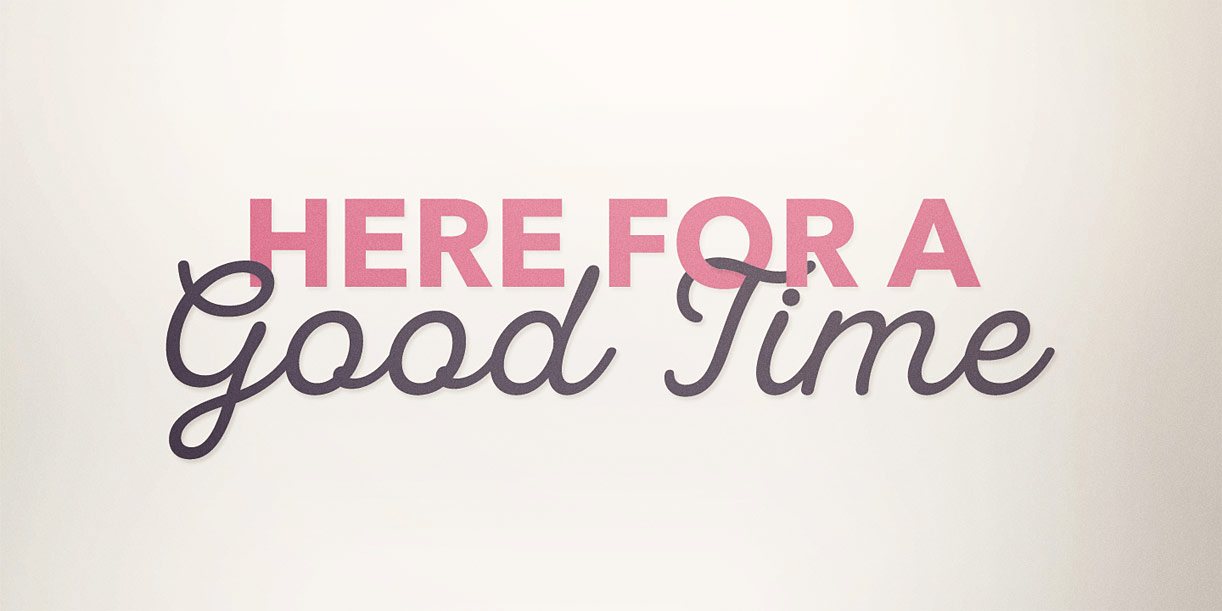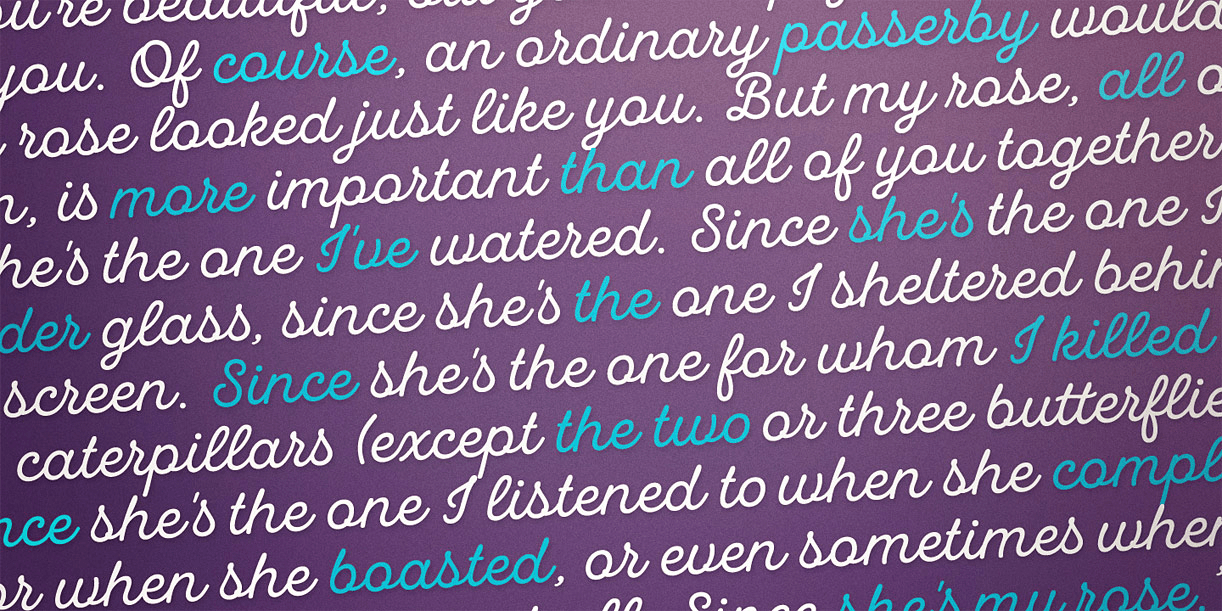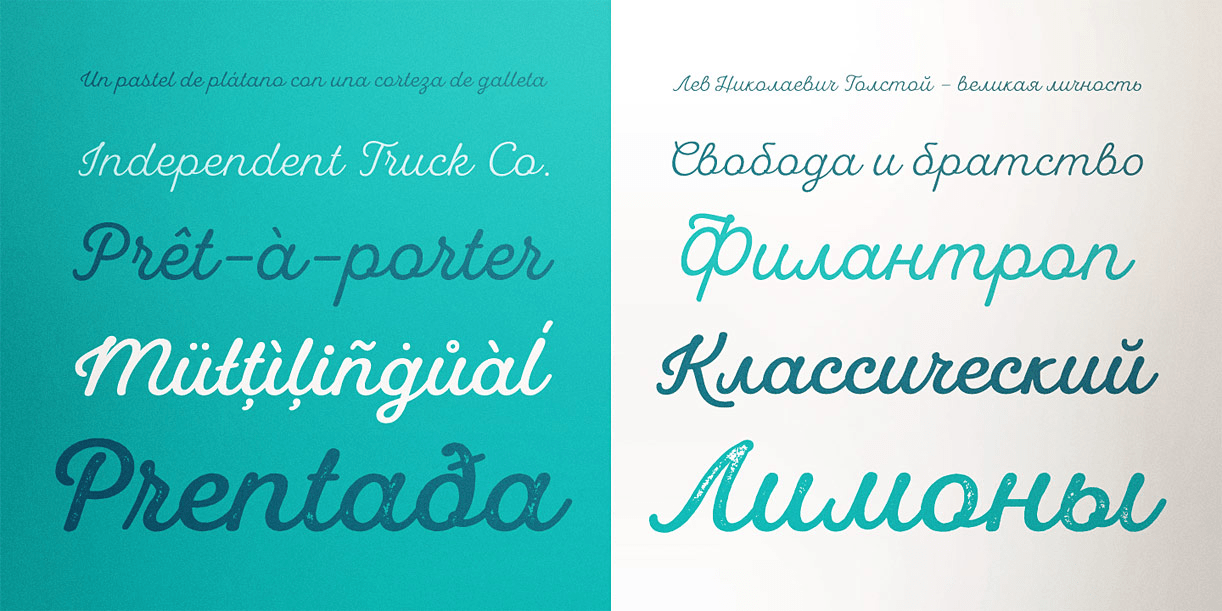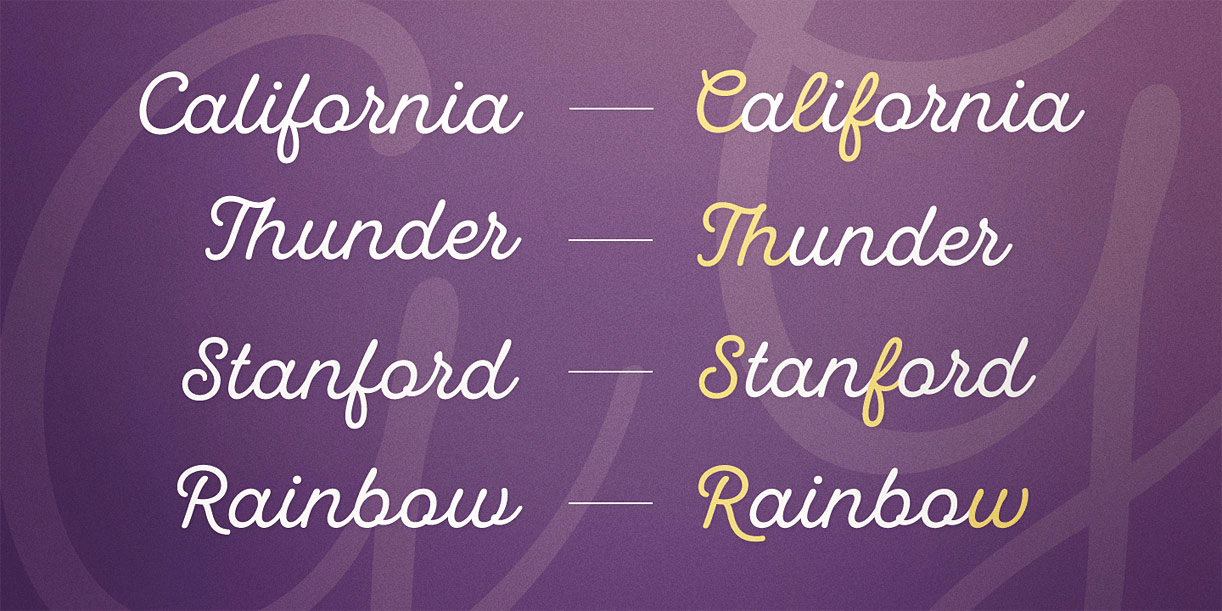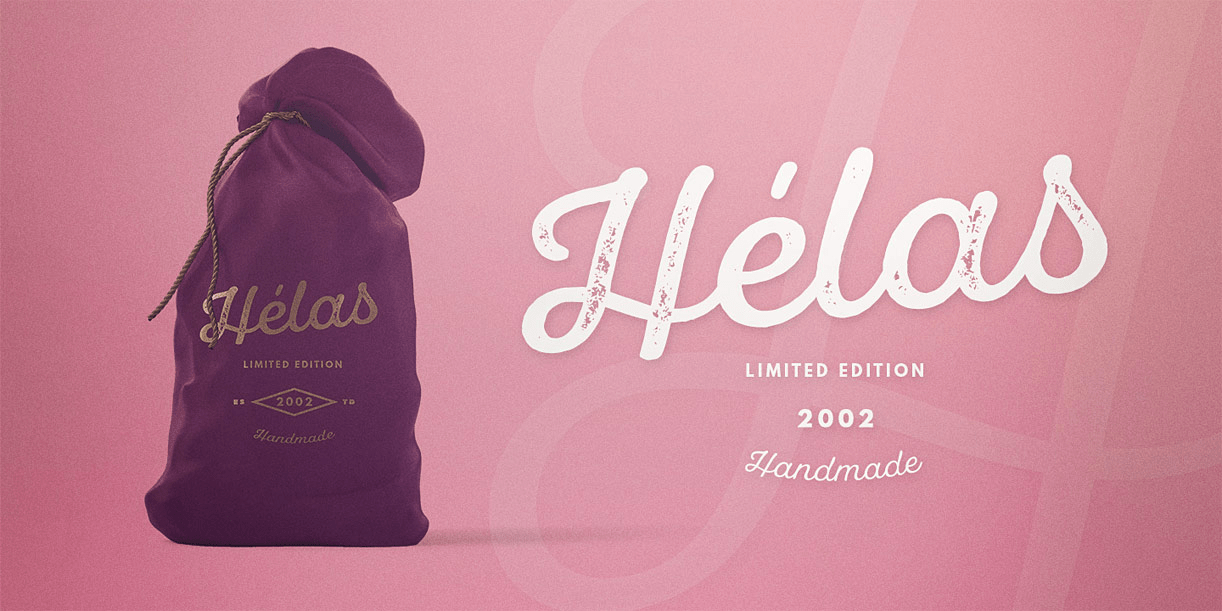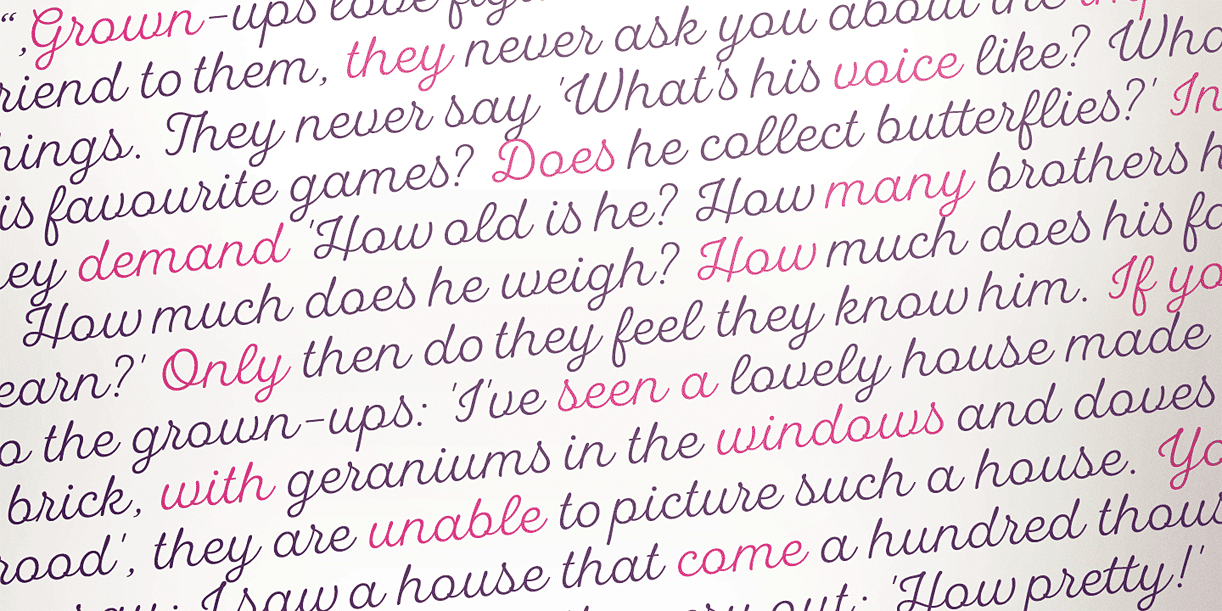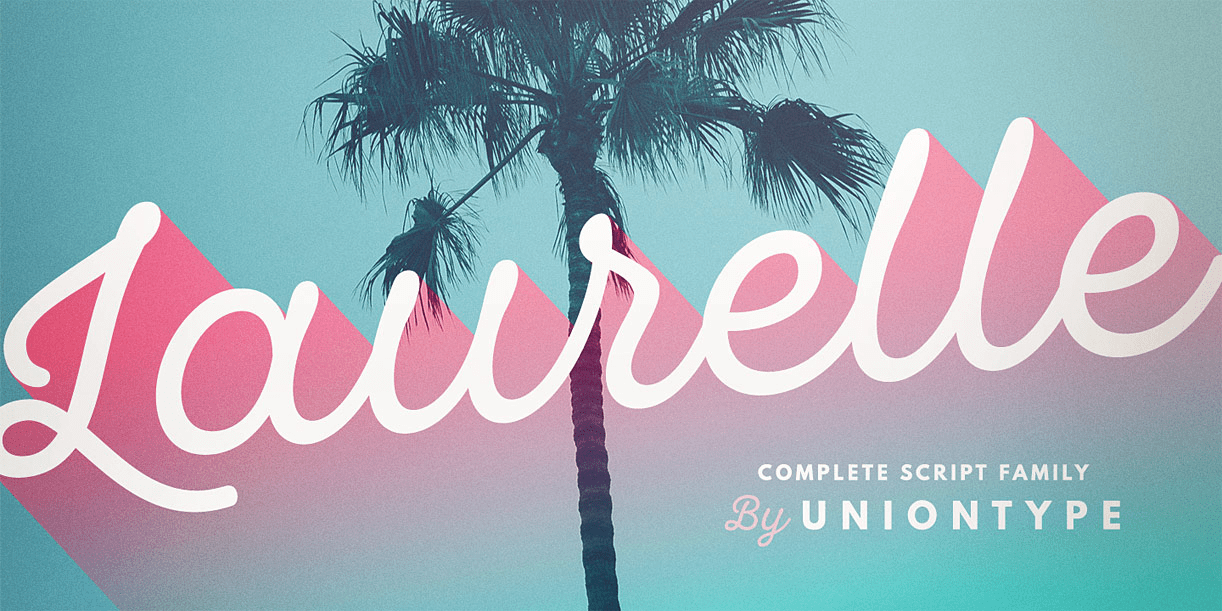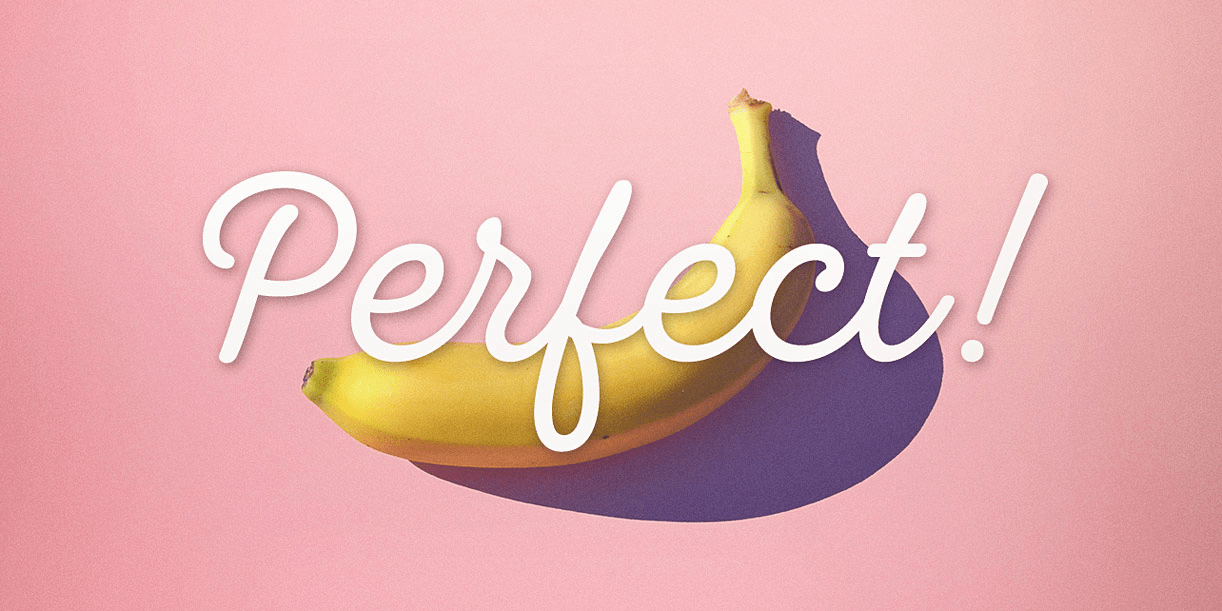
Laurelle
About Laurelle
Laurelle is a polished and smooth script family. The family consists of light, regular, bold and press styles. Laurelle provides advanced typographical support with contextual alternates, final forms, ligatures and swashes. This font also includes Cyrillic,…